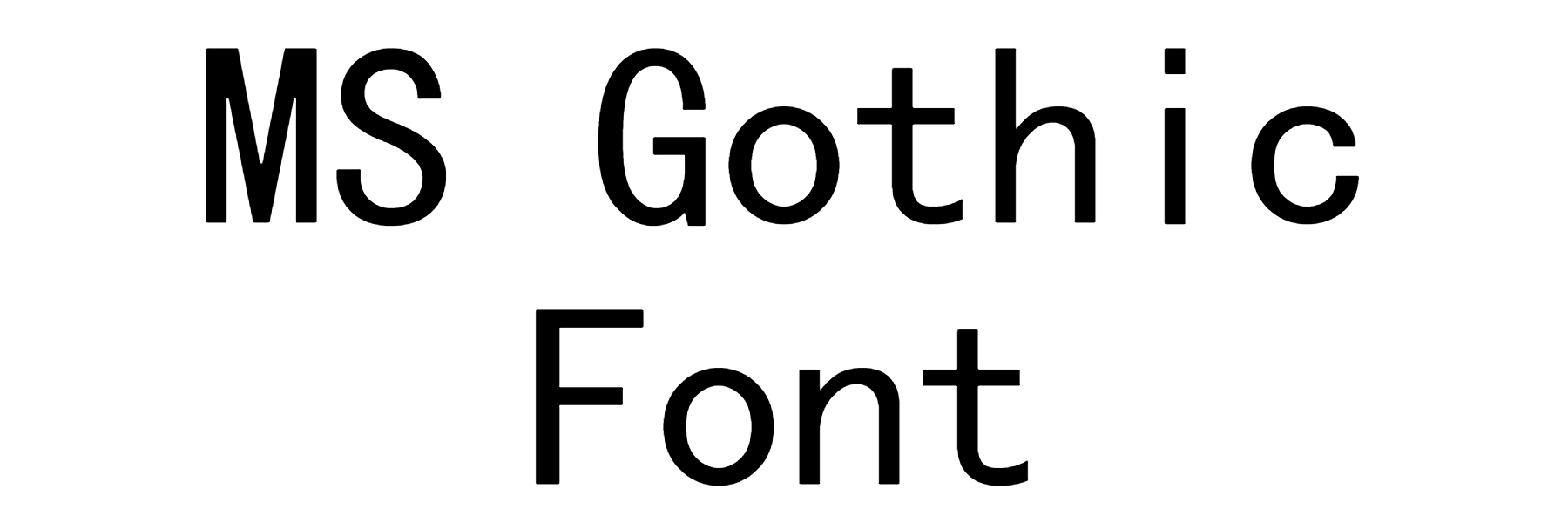
MS Gothic
MS Gothic is a sans serif font (1993). It has a clean, no-nonsense look that fits modern brands and websites. You can download it for free and test it with your own words in the preview above.
What You Can Type With MS Gothic
MS Gothic covers the full alphabet in upper and lowercase, plus all ten numbers, so you can set names, dates and prices without switching fonts. Everyday marks like &, !, ? and @ are there too. There are no accented letters like é or ñ, so it's best kept to English text. On top of that, it includes Greek and Cyrillic characters.
Where MS Gothic Works Best
MS Gothic is a natural fit for websites, app screens and clean logos. The file has no kerning data, so in logos and big titles check pairs like AV, To and Wa and tighten the spacing by hand. It works for headings and body text alike. If the download has several weights, use a heavier one for titles and a lighter one for paragraphs.
Does MS Gothic support accented letters?
No. MS Gothic has no accented letters such as é, ñ or ü, so it's best for English text.